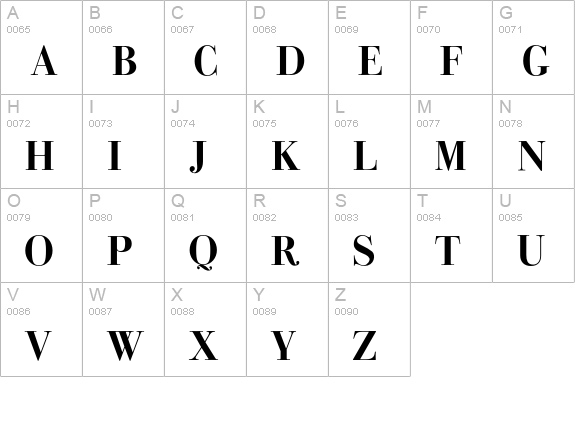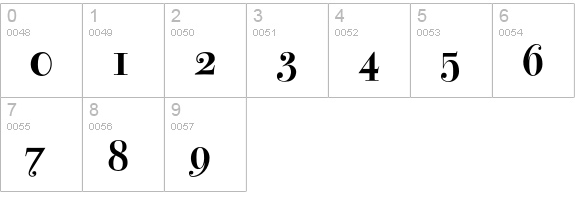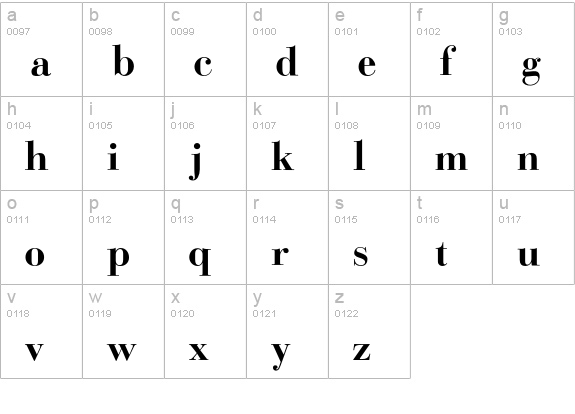
BodoniClassic-Bold is a strong, high-contrast variant in the BodoniClassic typeface family \xE2\x80\x94 well suited to headlines, attention-grabbing titles, and strong calls-to-action.
BodoniClassic-Bold is a timeless and elegant font that exudes sophistication and modernity. With its bold weight, this typeface commands attention and makes a strong statement in any design project. The sharp serifs and clean lines of BodoniClassic-Bold give it a refined and polished look that is perfect for luxury branding, editorial design, and high-end marketing materials. What makes BodoniClassic-Bold even more appealing is that it is available for free download at FontsMarket.com. This means that you can easily access and use this premium font in your projects without having to worry about any additional costs. Whether you are a designer looking to elevate your work or a business owner aiming to create a distinctive brand identity, BodoniClassic-Bold is a versatile choice that will undoubtedly impress. Download it today and add a touch of sophistication to your designs.